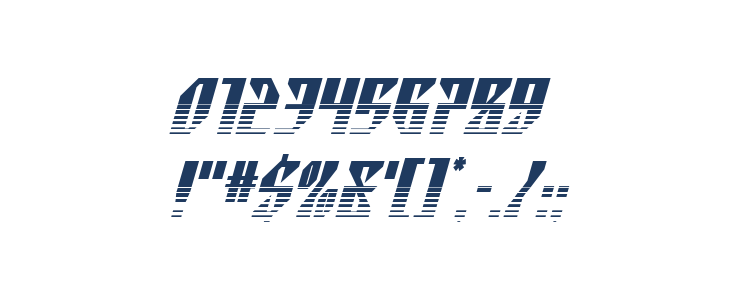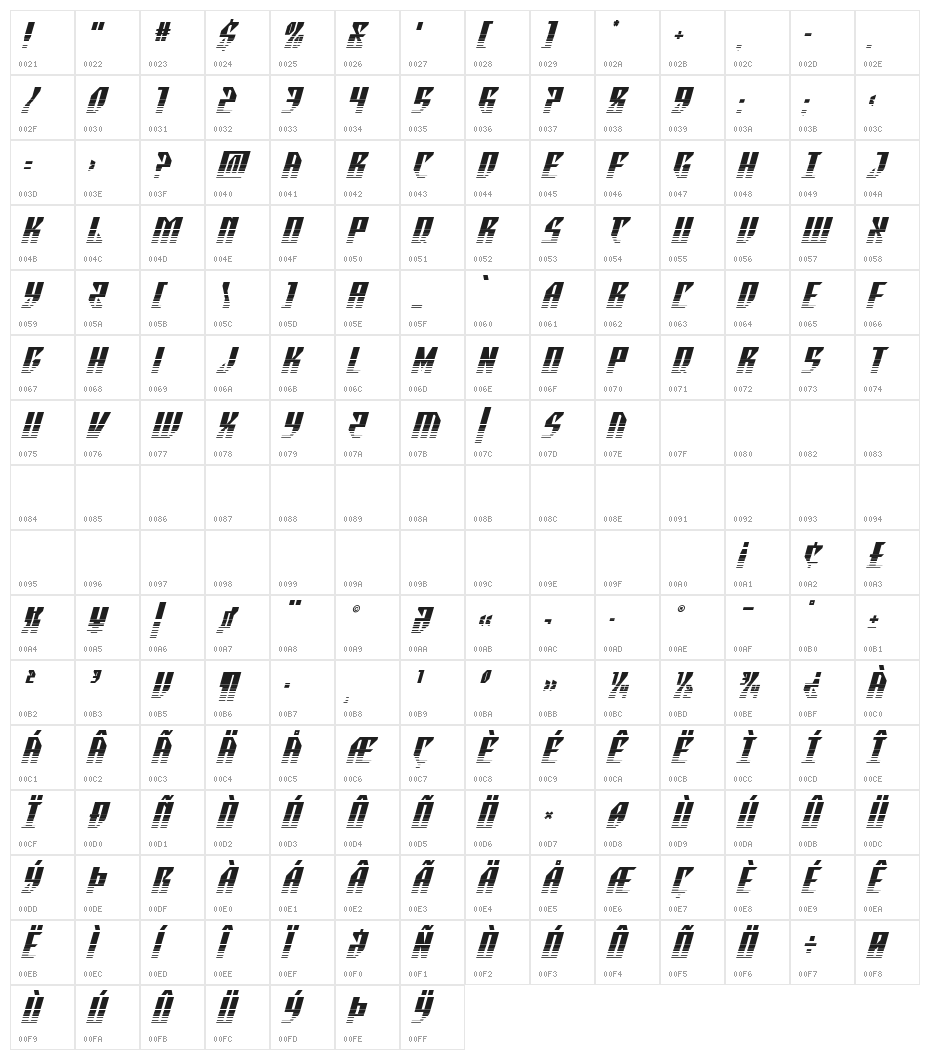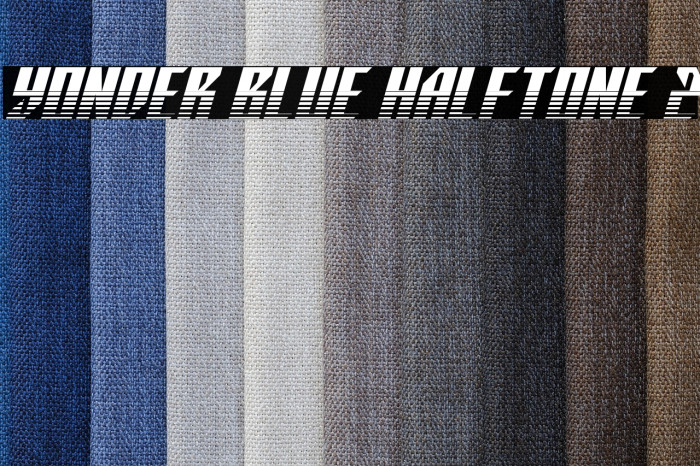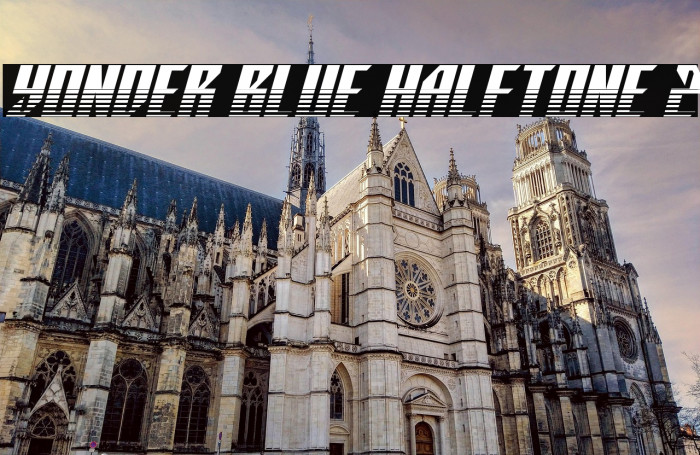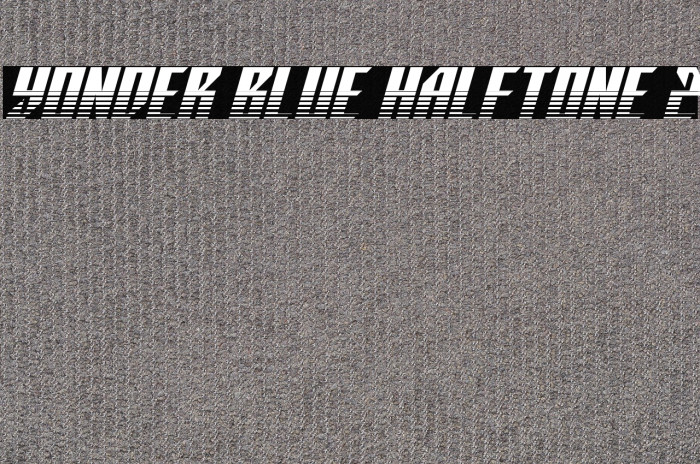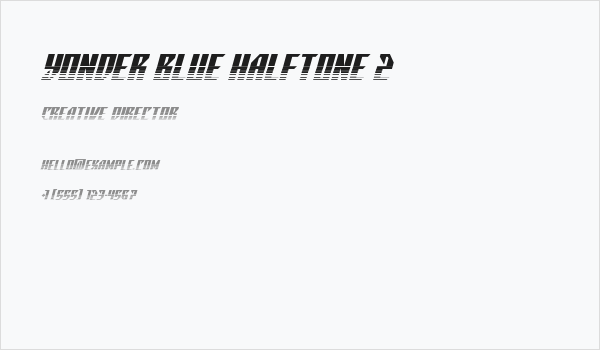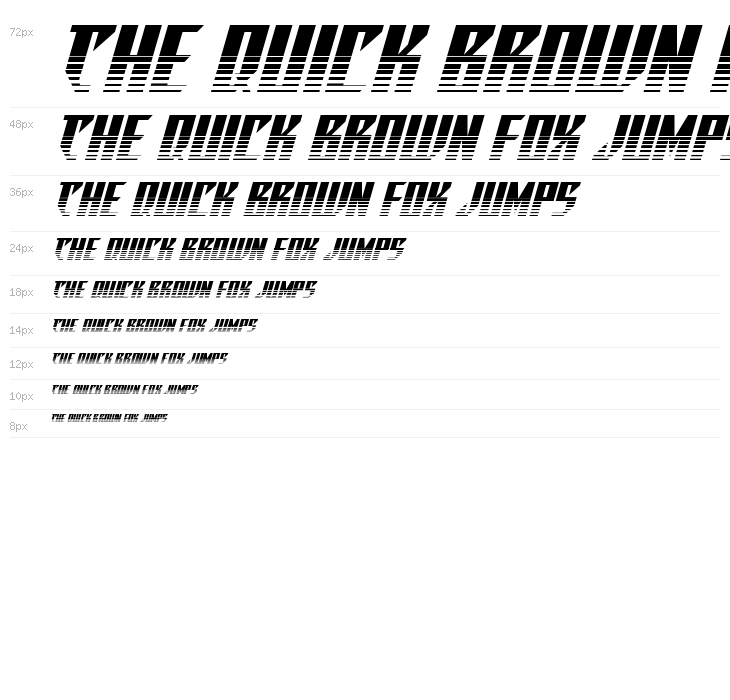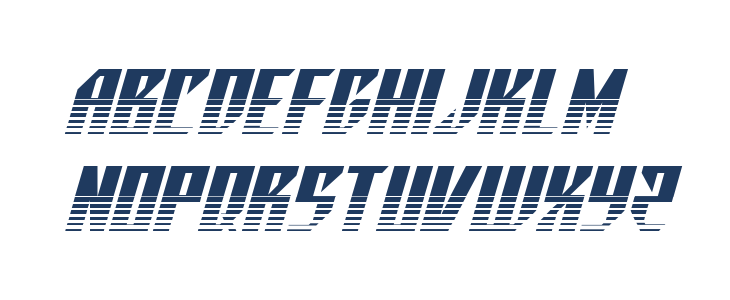
Yonder Blue Halftone 2 Font
Yonder Blue Halftone 2 Description
This font features a bold, modern design with a distinctive halftone effect that creates a sense of movement and dynamism. The characters are constructed with horizontal lines that vary in thickness, giving the font a unique, futuristic appearance. The uppercase and lowercase letters maintain a consistent style, with sharp angles and a slightly condensed form. The numerals and special characters are designed to match the overall aesthetic, ensuring a cohesive look across all text elements. This font is ideal for projects that require a striking, contemporary look, such as branding, advertising, or digital media.